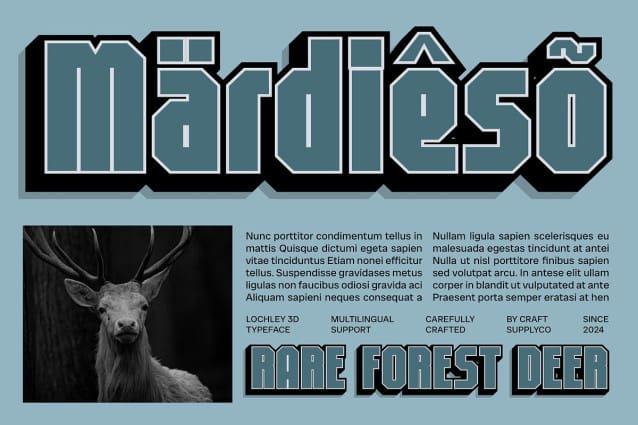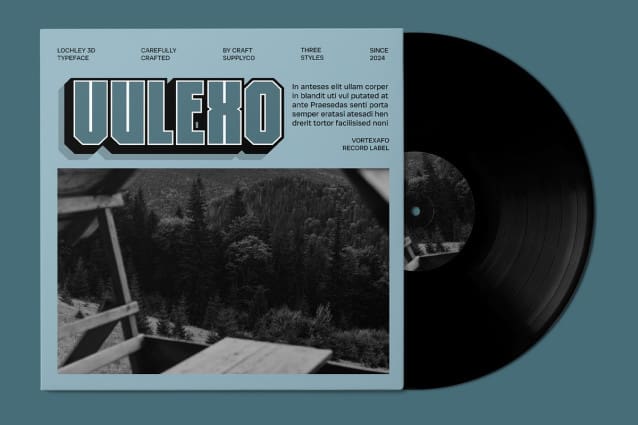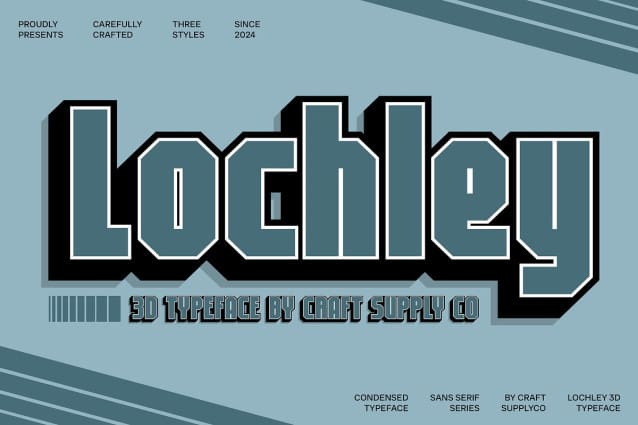
Lochley 3D Font
Lochley 3D Font is a sans serif font that embodies an industrial design ethos, featuring a condensed, bold shape that exudes strength and masculinity. The robust letterforms are meticulously crafted to deliver a sense of reliability and authority, making it an excellent choice for designs that seek to convey power and confidence. Its clean lines and geometric angles contribute to a modern aesthetic that fits seamlessly into various contemporary design contexts.
Engaging 3D Effect for Visual Depth The addition of a captivating 3D effect elevates Lochley 3D, introducing engaging visual depth that enhances its presence. This dimensional quality not only makes the font visually appealing but also draws the eye, ensuring that your messages are effectively communicated. The interplay of light and shadow within the 3D structure brings a dynamic element to the design, allowing it to stand out in both digital and print formats.
Ideal for Branding and Graphic Projects Lochley 3D is perfectly suited for a wide range of design applications, including branding, posters, and other graphic elements that require standout appeal. Its bold and industrial characteristics make it an excellent choice for projects aiming for a modern and professional look, whether for corporate identities, promotional materials, or impactful signage. This font ensures that your brand makes a memorable impression, resonating with audiences on multiple levels.